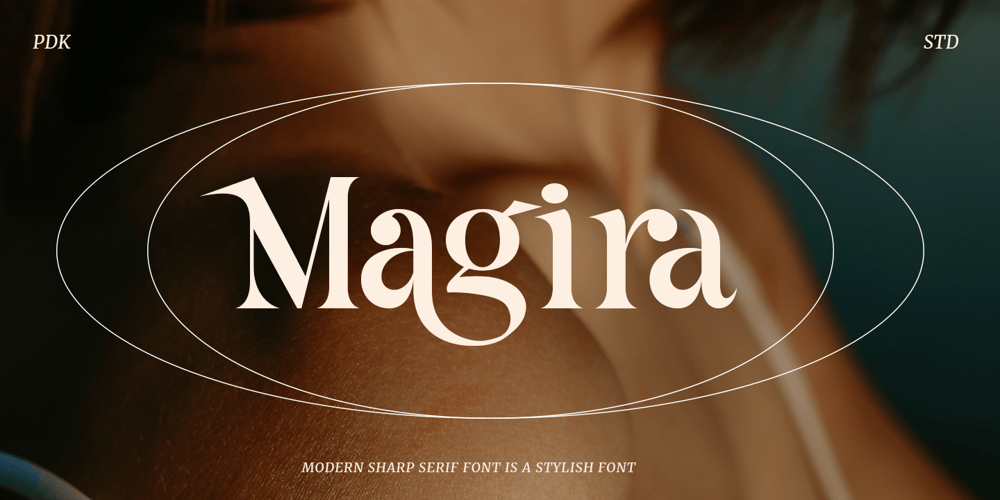
Magira Font Family was designed by Sagara Nararya and published by Pandeka Studio. Magira contains 2 styles and family package options. Introducing new sharp style font, Magira!Magira – A serif typeface with an experimental and sharp style. Magira is inspired by timeless packaging from a forgotten era. It has a beautiful range of stylistic alternates with unique characters.Magira – fearless and chic typeface perfect for big headlines for both print and web. It comes with Italic style, unique lower and uppercase plus numbers, punctuation & multilingual lettersFile Included Magira Main Files Letters, numbers, symbols, and punctuation Has 37 beautiful alternates and ligatures Use in many programs even in Canva Multilingual Support Come and say hello over on Instagram! https://www.instagram.com/pandekastudio/Pandeka Studio